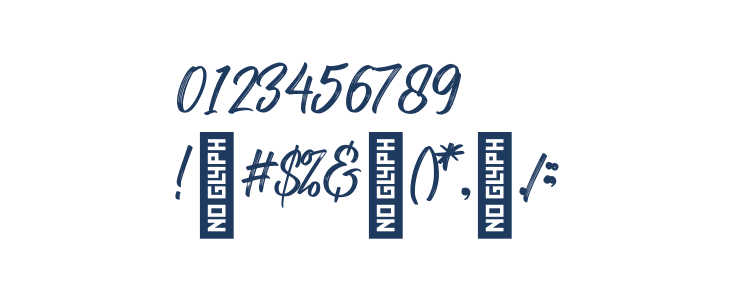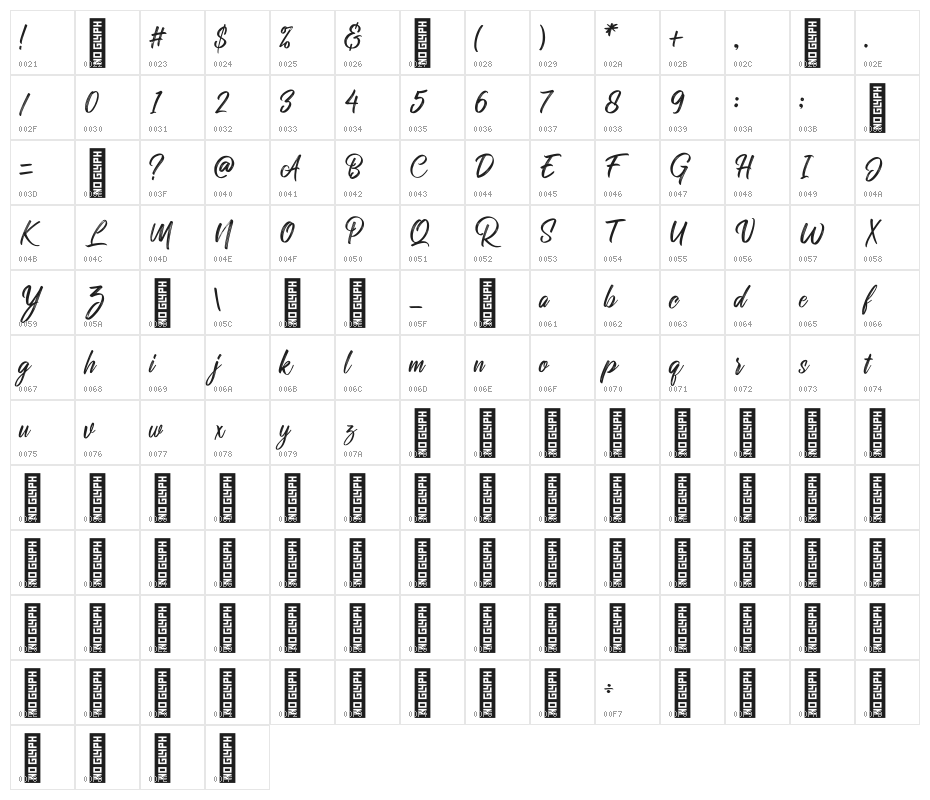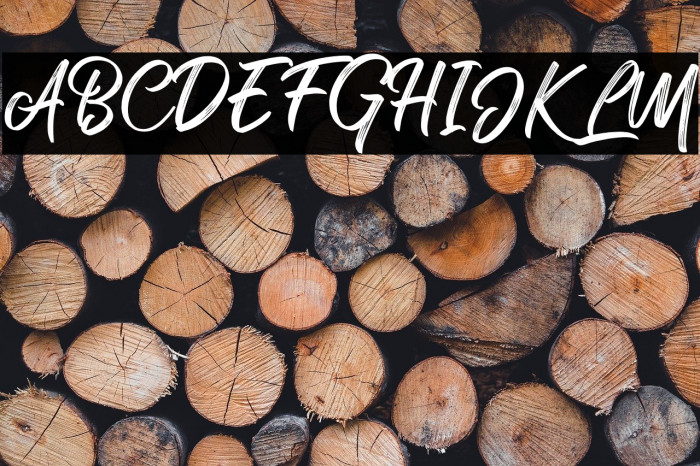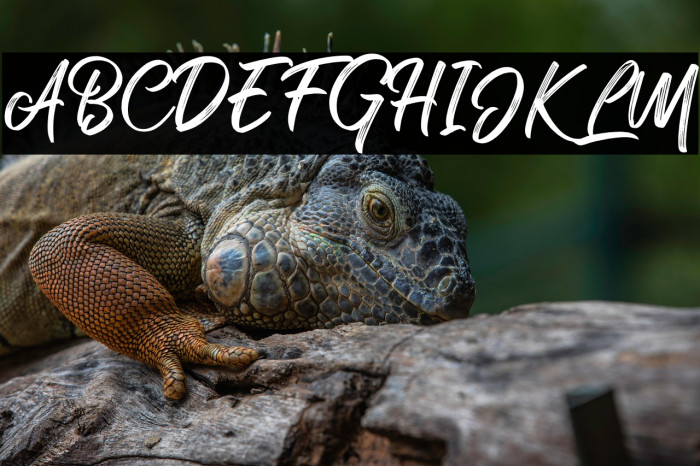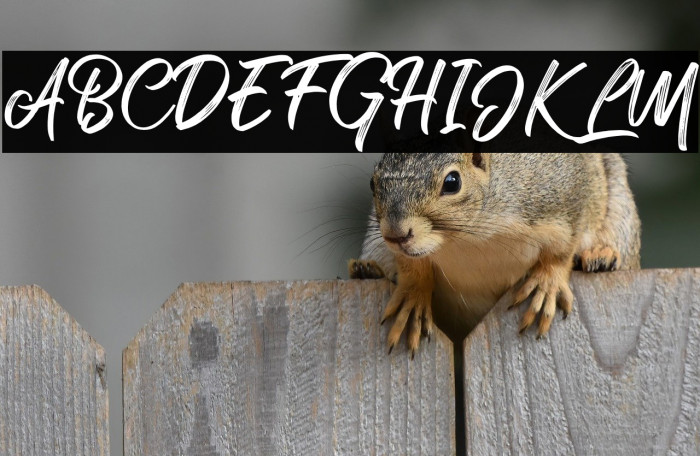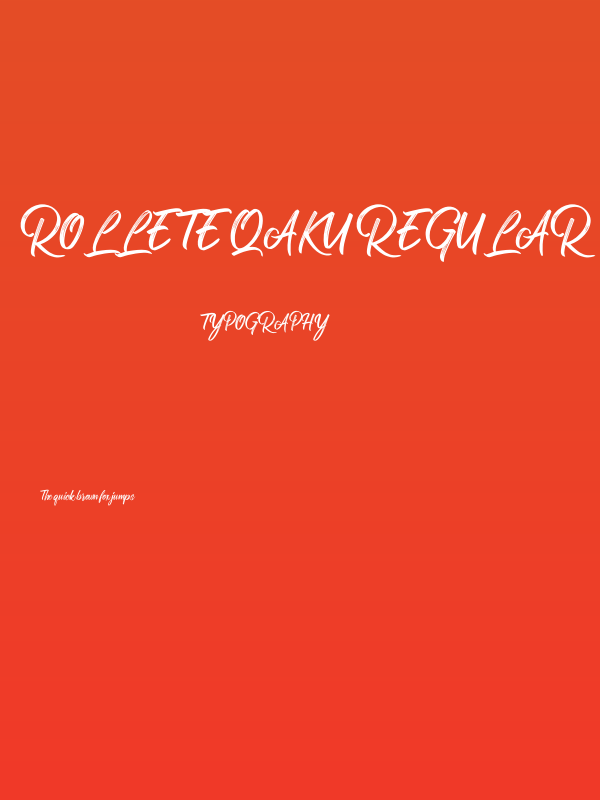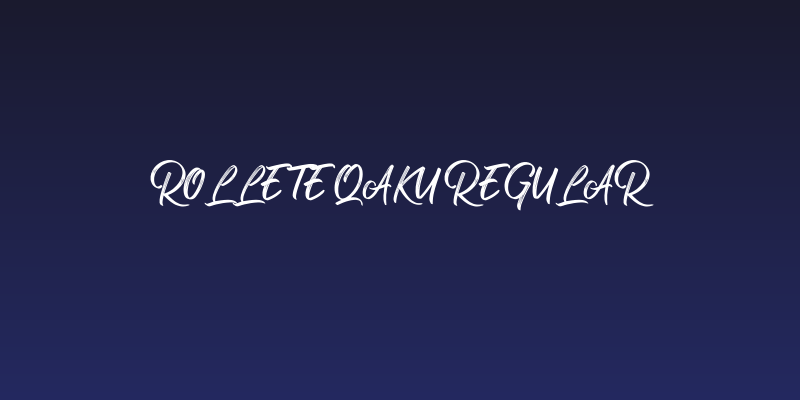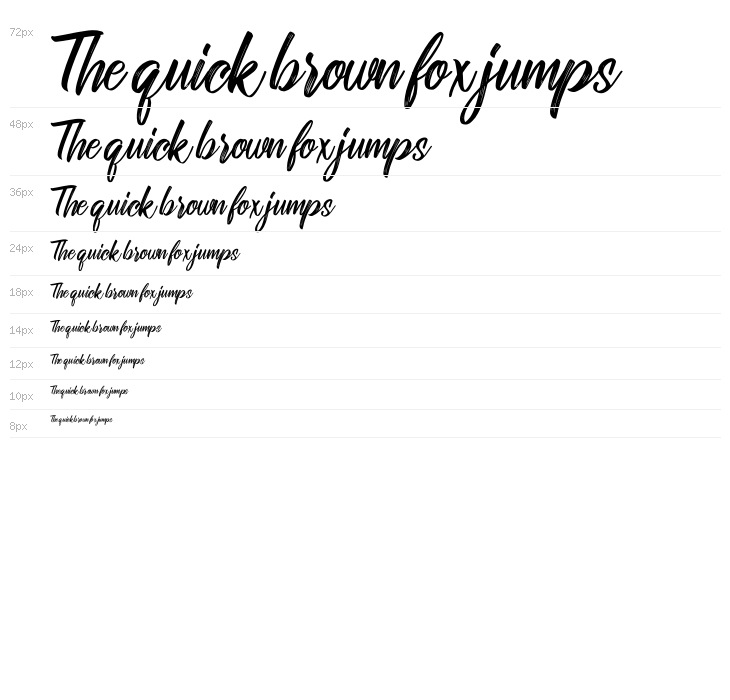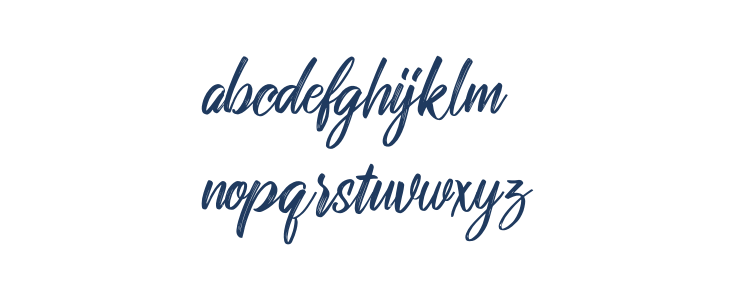
Rollete Qaku Regular Font
Rollete Qaku Regular Description
This font features a dynamic and flowing script style, characterized by its elegant and cursive letterforms. The uppercase letters are bold and sweeping, with a slight slant that adds a sense of movement and grace. The lowercase letters maintain a consistent flow, complementing the uppercase with their smooth curves and connected strokes. Numbers and special characters are designed to match the overall aesthetic, offering a cohesive look. The font's brush-like texture gives it a handcrafted feel, making it suitable for designs that require a personal touch.